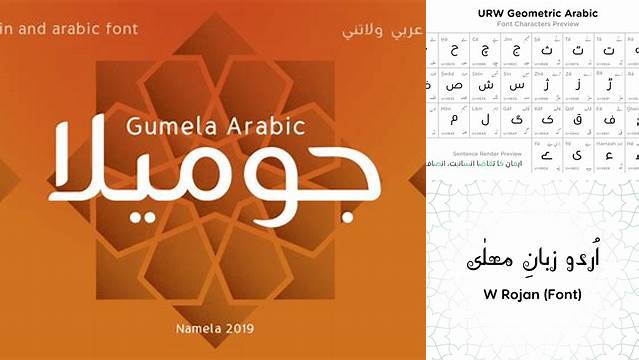
Free Geometric Arabic Font Downloads: A Designer's Guide
Hey there, font enthusiasts! Are you on the hunt for geometric Arabic fonts that perfectly blend tradition with modernity? Well, you've landed in the right spot! In this comprehensive guide, we'll dive deep into the world of geometric Arabic fonts, exploring their significance, characteristics, and, most importantly, where you can snag them for free. Let's embark on this typographical journey together!
What are Geometric Arabic Fonts?
Let's kick things off by understanding what geometric Arabic fonts actually are. These fonts are characterized by their clean lines, precise shapes, and a harmonious balance between curves and angles. Unlike traditional Arabic calligraphy, which often features flowing and intricate strokes, geometric fonts emphasize simplicity and clarity. This makes them incredibly versatile for a wide range of design applications.
The Essence of Geometric Design in Arabic Typography
Geometric design plays a crucial role in Arabic typography, offering a modern twist on classic scripts. Think of it as the architectural blueprint of a letter, where each stroke and curve is meticulously planned and executed. This approach not only enhances legibility but also brings a contemporary aesthetic to the Arabic script. The beauty of geometric fonts lies in their ability to communicate effectively while maintaining an elegant and sophisticated appearance. They’re like the minimalist architects of the font world, creating structures that are both functional and visually appealing.
Geometric Arabic fonts draw inspiration from geometric principles found in Islamic art and architecture. This influence is evident in the recurring use of shapes like circles, squares, and triangles, which are seamlessly integrated into the letterforms. This fusion of art and functionality makes these fonts particularly suitable for branding, logos, and digital interfaces, where a clean and modern look is essential. They bring a sense of order and precision that resonates well with contemporary design sensibilities.
Moreover, geometric fonts are not just about aesthetics; they also address the practical needs of modern typography. In digital spaces, where clarity and readability are paramount, geometric fonts shine. Their uniform strokes and balanced letterforms ensure that text remains legible even at smaller sizes, making them ideal for web design and mobile applications. This adaptability is a key reason why geometric Arabic fonts have become increasingly popular among designers and typographers. They bridge the gap between traditional Arabic calligraphy and the demands of modern digital communication, offering a versatile solution for a wide range of projects.
Why Geometric Arabic Fonts are a Designer's Best Friend
Why are geometric Arabic fonts so popular among designers, you ask? Well, there are several compelling reasons. First and foremost, their clean and modern aesthetic makes them perfect for contemporary designs. They exude a sense of sophistication and professionalism, making them ideal for branding, logos, and corporate communications. Secondly, geometric fonts are highly legible, which is crucial for ensuring that your message is effectively conveyed. Whether it's a website, a poster, or a mobile app, readability is key, and geometric fonts deliver on this front.
Designers appreciate the versatility of geometric Arabic fonts, which can be adapted to suit a variety of styles and applications. From minimalist designs to more complex layouts, these fonts seamlessly integrate, adding a touch of elegance and clarity. Their balanced letterforms and consistent strokes create a harmonious visual rhythm, making them a pleasure to read. This adaptability makes them a go-to choice for designers who need a reliable and aesthetically pleasing font.
Furthermore, geometric Arabic fonts often come with a range of weights and styles, providing designers with the flexibility to create visual hierarchy and emphasis within their designs. Whether you need a bold typeface for headlines or a light weight for body text, geometric fonts typically offer a comprehensive suite of options. This versatility allows designers to maintain a cohesive visual identity across different media and platforms. They are the Swiss Army knives of the font world, offering a tool for every design challenge.
In addition to their aesthetic and practical benefits, geometric Arabic fonts also carry a cultural significance. They represent a modern interpretation of traditional Arabic calligraphy, blending heritage with innovation. This makes them a powerful tool for brands and organizations that want to convey a sense of authenticity while also projecting a contemporary image. By using geometric fonts, designers can pay homage to the rich history of Arabic typography while creating designs that resonate with modern audiences. It's a way of bridging the past and the present, creating designs that are both timeless and relevant.
Where to Find Free Geometric Arabic Fonts
Now for the million-dollar question: where can you find these fantastic fonts without breaking the bank? Fear not, font aficionados! The internet is brimming with resources offering free geometric Arabic fonts. However, it's crucial to tread carefully and ensure that you're downloading fonts from reputable sources to avoid any licensing issues or malware.
Exploring Reputable Font Repositories
One of the best places to start your search is through reputable font repositories. Websites like Google Fonts, Font Squirrel, and Adobe Fonts offer a wide selection of free geometric Arabic fonts that are licensed for commercial use. These platforms meticulously curate their font libraries, ensuring that you have access to high-quality typefaces that are both legal and safe to use.
Google Fonts, in particular, is a treasure trove for designers seeking free and open-source fonts. It boasts an impressive collection of Arabic fonts, including several geometric styles, that can be easily integrated into websites and other digital projects. The fonts on Google Fonts are optimized for web use, ensuring that they load quickly and display beautifully on all devices. This makes Google Fonts an invaluable resource for web designers and developers looking to enhance their projects with Arabic typography.
Font Squirrel is another excellent option, offering a curated selection of high-quality free fonts that are licensed for commercial use. The website features a user-friendly interface that makes it easy to browse and discover new fonts. Font Squirrel also provides detailed licensing information for each font, ensuring that you understand how you can use it. This transparency is crucial for avoiding any potential legal issues and ensuring that you're using fonts responsibly.
Adobe Fonts, while primarily a subscription-based service, also offers a selection of free fonts that are available to Adobe Creative Cloud subscribers. These fonts are seamlessly integrated into Adobe's suite of design software, making it easy to incorporate them into your projects. The free fonts on Adobe Fonts are of the same high quality as the paid ones, providing designers with access to professional-grade typography without any additional cost.
By exploring these reputable font repositories, you can confidently find and download free geometric Arabic fonts that meet your design needs. These platforms offer a safe and reliable way to access a wide range of typefaces, empowering you to create stunning designs without breaking the bank.
Open Source Font Communities
Another fantastic avenue for discovering free geometric Arabic fonts is through open-source font communities. These communities are made up of passionate typographers and designers who generously share their creations with the world. Websites like Open Font Library and SIL Open Font License offer a plethora of fonts that are free to use, modify, and distribute.
Open Font Library is a collaborative platform that hosts a vast collection of open-source fonts, including a growing number of Arabic typefaces. The website is dedicated to promoting the development and use of free fonts, providing a space for designers to share their work and collaborate on new projects. Open Font Library is a great resource for finding unique and experimental fonts that you won't find anywhere else.
The SIL Open Font License (OFL) is a widely used license for open-source fonts, allowing designers to freely use, modify, and distribute fonts as long as they adhere to the terms of the license. Many geometric Arabic fonts are released under the OFL, making them accessible to a global community of designers. The OFL is designed to promote the development and sharing of fonts, fostering a collaborative environment within the typography community.
Participating in open-source font communities not only gives you access to a wealth of free fonts but also allows you to connect with other designers and typographers. These communities often host forums and discussions where you can ask questions, share your work, and learn from others. By engaging with these communities, you can expand your knowledge of typography and contribute to the development of new fonts.
When using open-source fonts, it's essential to carefully review the licensing terms to ensure that you're complying with the requirements. While the OFL is generally permissive, it's crucial to understand the specific conditions of each font license. This will help you avoid any potential legal issues and ensure that you're using fonts responsibly. By embracing open-source fonts, you can support the creative community and access a diverse range of high-quality typefaces for your design projects.
Free Font Websites and Resources
Beyond font repositories and open-source communities, numerous websites offer free geometric Arabic fonts for download. Websites like Behance, Dribbble, and individual designer portfolios often feature free font samples or complete font families that you can use in your projects. However, it's crucial to exercise caution and verify the licensing terms before using these fonts.
Behance and Dribbble are popular platforms for designers to showcase their work, and many designers offer free fonts as a way to promote their skills and attract new clients. These platforms are a great source for finding unique and stylish geometric Arabic fonts that reflect the latest design trends. However, it's essential to carefully review the licensing information provided by the designer to ensure that you're using the font in accordance with their terms.
Individual designer portfolios are another valuable resource for discovering free geometric Arabic fonts. Many independent typographers and font designers offer free fonts on their websites as a way to build their reputation and share their passion for typography. These fonts often come with detailed documentation and support, making them a great choice for designers who want to learn more about font design.
When downloading fonts from free font websites, it's crucial to be vigilant about potential risks. Some websites may host fonts that are infected with malware or that violate copyright laws. To protect yourself, always download fonts from reputable sources and scan downloaded files with antivirus software before using them. Additionally, carefully review the licensing terms of each font to ensure that you're using it legally and ethically.
By exploring these free font websites and resources, you can expand your typographic palette and discover a wide range of geometric Arabic fonts for your design projects. However, it's essential to exercise caution and verify the licensing terms to ensure that you're using fonts responsibly and safely.
Key Characteristics of Geometric Arabic Fonts
So, what exactly sets geometric Arabic fonts apart from other Arabic typefaces? Let's break down the key characteristics that define these fonts.
Clean Lines and Precise Shapes
The defining feature of geometric Arabic fonts is their emphasis on clean lines and precise shapes. Each letterform is carefully constructed using geometric principles, resulting in a typeface that is both elegant and highly legible. This focus on precision makes geometric fonts ideal for applications where clarity is paramount, such as in branding, signage, and digital interfaces.
The clean lines of geometric Arabic fonts contribute to their modern and minimalist aesthetic. By stripping away unnecessary ornamentation, these fonts convey a sense of simplicity and sophistication. This makes them a versatile choice for a wide range of design projects, from corporate communications to editorial layouts. The precise shapes of the letterforms ensure that each character is distinct and easily recognizable, enhancing readability and visual impact.
In contrast to more traditional Arabic scripts, which often feature flowing and calligraphic strokes, geometric fonts prioritize structure and uniformity. This emphasis on geometric forms creates a harmonious visual rhythm that is pleasing to the eye. The consistent stroke weights and balanced proportions of the letterforms contribute to the overall legibility and aesthetic appeal of the typeface.
The use of geometric principles in Arabic typography is not a new phenomenon. Islamic art and architecture have long been characterized by geometric patterns and designs, and these influences have found their way into Arabic calligraphy and typography. Geometric Arabic fonts represent a modern interpretation of these traditional forms, blending heritage with contemporary design sensibilities.
The clean lines and precise shapes of geometric Arabic fonts also make them well-suited for use in digital environments. In web design and mobile applications, clarity and readability are essential, and geometric fonts excel in these areas. Their uniform strokes and balanced letterforms ensure that text remains legible even at smaller sizes, making them a practical choice for digital interfaces.
By understanding the importance of clean lines and precise shapes in geometric Arabic fonts, designers can effectively use these typefaces to create visually appealing and highly legible designs. This characteristic is a key factor in the popularity and versatility of geometric Arabic fonts in modern typography.
Uniform Stroke Weights
Another hallmark of geometric Arabic fonts is their uniform stroke weights. This means that the thickness of the lines within each letterform remains consistent, creating a balanced and harmonious appearance. Uniform stroke weights enhance readability and give the font a clean and modern look.
The uniformity of stroke weights in geometric Arabic fonts contributes to their overall legibility and clarity. By maintaining a consistent thickness throughout each letterform, these fonts ensure that the characters are easily distinguishable, even at smaller sizes. This is particularly important in digital environments, where text needs to be legible on a variety of screens and devices.
In contrast to some other Arabic typefaces, which may feature varying stroke weights to create visual interest or emphasize certain elements, geometric fonts prioritize consistency. This uniformity creates a sense of order and precision, making these fonts well-suited for applications where clarity and professionalism are paramount. The balanced appearance of uniform stroke weights also contributes to the aesthetic appeal of geometric fonts, giving them a clean and modern look.
The use of uniform stroke weights in geometric Arabic fonts is a reflection of the geometric principles that underpin their design. Just as geometric shapes are defined by their precise proportions and consistent lines, geometric fonts are characterized by their uniform stroke weights. This attention to detail is a key factor in the visual harmony and legibility of these typefaces.
The uniform stroke weights of geometric Arabic fonts also make them versatile for a wide range of design applications. Whether used in headlines, body text, or logos, these fonts maintain their clarity and impact. Their balanced appearance ensures that they can be seamlessly integrated into various design layouts, from minimalist designs to more complex compositions.
By understanding the importance of uniform stroke weights in geometric Arabic fonts, designers can effectively use these typefaces to create visually appealing and highly legible designs. This characteristic is a key factor in the popularity and versatility of geometric Arabic fonts in modern typography.
Balanced Proportions
Geometric Arabic fonts are known for their balanced proportions, meaning that the height, width, and overall shape of each letterform are carefully calibrated to create a visually pleasing and harmonious whole. This balance contributes to the font's legibility and aesthetic appeal.
The balanced proportions of geometric Arabic fonts are a key factor in their readability. By ensuring that each letterform is appropriately sized and shaped, these fonts make it easier for the eye to scan and process text. This is particularly important in long passages of text, where legibility can significantly impact the reading experience.
In addition to enhancing readability, balanced proportions also contribute to the aesthetic appeal of geometric Arabic fonts. The harmonious relationship between the letterforms creates a sense of visual order and elegance. This makes geometric fonts a popular choice for designs that aim to convey a sense of sophistication and professionalism.
The balanced proportions of geometric Arabic fonts are achieved through careful attention to detail in the design process. Typographers meticulously craft each letterform, ensuring that it fits seamlessly within the overall typeface. This involves considering factors such as the height of the ascenders and descenders, the width of the characters, and the spacing between letters.
Geometric principles play a crucial role in achieving balanced proportions in Arabic fonts. By using geometric shapes as a foundation for the letterforms, typographers can create a sense of visual harmony and consistency. This approach ensures that the characters are well-proportioned and that the typeface as a whole is aesthetically pleasing.
The balanced proportions of geometric Arabic fonts also make them versatile for a wide range of design applications. Whether used in print or digital media, these fonts maintain their legibility and visual impact. Their harmonious appearance allows them to seamlessly integrate into various design layouts, making them a valuable tool for designers.
By understanding the importance of balanced proportions in geometric Arabic fonts, designers can effectively use these typefaces to create visually appealing and highly legible designs. This characteristic is a key factor in the popularity and versatility of geometric Arabic fonts in modern typography.
How to Choose the Right Geometric Arabic Font
With so many geometric Arabic fonts available, selecting the right one for your project can feel like a daunting task. Here are some factors to consider to make the process a little easier:
Consider Your Project's Purpose and Tone
When choosing a geometric Arabic font, the first and most crucial step is to consider the purpose and tone of your project. What message are you trying to convey? What kind of feeling do you want your design to evoke? The answers to these questions will guide you in selecting a font that aligns perfectly with your goals.
For projects that require a sense of professionalism and sophistication, a clean and minimalist geometric font is often the best choice. These fonts exude a sense of order and clarity, making them ideal for corporate communications, branding materials, and formal documents. Their simplicity conveys a sense of trustworthiness and reliability, which is essential for building credibility with your audience.
On the other hand, if your project aims to be more creative and expressive, you might opt for a geometric font with unique features or a more playful design. These fonts can add personality and flair to your designs, making them stand out from the crowd. However, it's important to strike a balance between creativity and legibility. Ensure that the font remains readable, even if it has distinctive characteristics.
The tone of your project also plays a significant role in font selection. Is your project serious and informative, or is it lighthearted and fun? The font you choose should reflect the overall mood of your design. For example, a bold and assertive geometric font might be suitable for a powerful headline, while a lighter and more delicate font could be used for body text in a softer, more approachable design.
By carefully considering the purpose and tone of your project, you can narrow down your font choices and select a geometric Arabic font that effectively communicates your message. Remember, the right font can enhance the impact of your design and help you connect with your audience on an emotional level.
Assess Legibility and Readability
Legibility and readability are paramount when selecting a geometric Arabic font. No matter how visually appealing a font may be, if it's difficult to read, it won't serve its purpose effectively. Legibility refers to the ability to distinguish individual letters, while readability is the ease with which a block of text can be read and understood.
When assessing legibility, consider the shapes of the letterforms and how easily they can be differentiated from one another. Are the characters distinct and clear, or do they blend together? Pay attention to the counters (the enclosed spaces within letters) and the overall structure of the glyphs. A legible font will have well-defined characters that are easy to recognize, even at smaller sizes.
Readability, on the other hand, depends on factors such as letter spacing, line height, and the overall rhythm of the text. A readable font will have appropriate spacing between letters and lines, allowing the eye to move smoothly across the text. The contrast between the text and the background also plays a crucial role in readability. Ensure that there is sufficient contrast to prevent eye strain and make the text easy to read.
Geometric Arabic fonts, with their clean lines and precise shapes, generally offer good legibility. However, it's essential to test the font in different contexts to ensure that it performs well in your specific application. Try using the font in headlines, body text, and other design elements to see how it looks and feels. Pay attention to how the font renders on different screens and devices, as this can affect its legibility.
In addition to visual testing, consider conducting user testing to gather feedback on the readability of your font choice. Ask people to read passages of text set in the font and provide their impressions. This can help you identify any potential issues and make informed decisions about your font selection.
By prioritizing legibility and readability, you can choose a geometric Arabic font that not only looks good but also effectively communicates your message. Remember, the goal is to make your text as accessible and easy to read as possible, ensuring that your audience can fully engage with your content.
Test Different Font Weights and Styles
Geometric Arabic fonts often come in various weights and styles, ranging from light and thin to bold and heavy. It's essential to test different font weights and styles to determine which ones best suit your project's needs. The weight of a font refers to the thickness of the strokes, while the style encompasses variations such as italic, condensed, and extended.
The font weight you choose can significantly impact the visual hierarchy of your design. Bolder weights are typically used for headlines and subheadings to draw attention, while lighter weights are better suited for body text. The contrast between different font weights can help create visual interest and guide the reader through your content.
When testing font weights, consider the overall balance and harmony of your design. A font that is too bold can overwhelm the other elements, while a font that is too light may be difficult to read. Experiment with different weights to find the sweet spot that achieves the desired visual impact without sacrificing legibility.
Font styles, such as italic, can be used to add emphasis or create a visual distinction within your text. Italic fonts have a slanted appearance, which makes them stand out from regular (roman) fonts. However, it's important to use italic sparingly, as overuse can reduce readability.
Other font styles, such as condensed and extended, can be used to fit text into specific spaces or create a particular visual effect. Condensed fonts are narrower than regular fonts, while extended fonts are wider. These styles can be useful for headlines or display text, but they may not be suitable for body text, as they can be more challenging to read in large blocks.
When testing different font weights and styles, consider the overall aesthetic of your design and how the font variations contribute to the visual message. Experiment with different combinations to find the ones that best complement your project's purpose and tone. Remember, the goal is to create a cohesive and visually appealing design that effectively communicates your message.
Common Uses of Geometric Arabic Fonts
Geometric Arabic fonts are incredibly versatile and can be used in a wide array of design projects. Here are some common applications:
Branding and Logos
One of the most popular uses of geometric Arabic fonts is in branding and logo design. Their clean, modern aesthetic makes them ideal for creating logos that convey a sense of sophistication, professionalism, and innovation. Geometric fonts can help a brand project a strong and confident image, making them a valuable tool for businesses and organizations seeking to establish a memorable identity.
When used in logos, geometric Arabic fonts can effectively communicate a brand's values and personality. A minimalist geometric font can convey simplicity and elegance, while a bolder font can project strength and authority. The choice of font should align with the brand's overall message and target audience. A well-designed logo using a geometric Arabic font can create a lasting impression and help a brand stand out in a competitive market.
Geometric fonts are also versatile enough to be adapted to a variety of branding materials, including business cards, letterheads, and websites. Their clean lines and precise shapes ensure that the brand identity remains consistent across all platforms. This consistency is crucial for building brand recognition and trust with customers.
The use of geometric Arabic fonts in branding is not limited to specific industries or sectors. They can be effectively used by businesses of all sizes and types, from startups to established corporations. Their modern and professional look makes them a versatile choice for any brand that wants to project a contemporary image.
In addition to their aesthetic qualities, geometric Arabic fonts also offer practical advantages for branding. Their legibility and readability make them suitable for use in a variety of contexts, including digital and print media. This ensures that the brand message remains clear and accessible, regardless of the medium.
By incorporating geometric Arabic fonts into their branding and logo design, businesses can create a strong and memorable visual identity that resonates with their target audience. These fonts offer a perfect blend of modernity and tradition, making them a valuable asset for any brand seeking to establish a unique and professional image.
Web Design and Digital Interfaces
In the realm of web design and digital interfaces, geometric Arabic fonts truly shine. Their legibility and clean lines make them perfect for on-screen reading, ensuring a smooth and enjoyable user experience. Whether it's a website, a mobile app, or a digital publication, geometric fonts can enhance the visual appeal and readability of your content.
Web designers often choose geometric Arabic fonts for their ability to render clearly on different screens and devices. The uniform stroke weights and balanced proportions of these fonts contribute to their legibility, even at smaller sizes. This is particularly important for responsive designs, which adapt to various screen resolutions and orientations.
Geometric fonts also lend a modern and sophisticated touch to digital interfaces. Their clean and minimalist aesthetic aligns well with contemporary design trends, making them a popular choice for websites and apps that aim to project a professional and user-friendly image. A well-chosen geometric font can elevate the overall visual appeal of a digital interface and create a positive user experience.
In addition to their aesthetic qualities, geometric Arabic fonts also offer practical advantages for web design. They are typically available in various weights and styles, allowing designers to create visual hierarchy and emphasis within their content. This helps guide the user's eye and makes the information more accessible.
Geometric fonts are also well-suited for use in interactive elements, such as buttons and navigation menus. Their clear and distinct letterforms ensure that these elements are easily recognizable and clickable, enhancing the usability of the interface.
The use of geometric Arabic fonts in web design is not limited to specific types of websites or applications. They can be effectively used in a variety of contexts, from corporate websites to e-commerce platforms to personal blogs. Their versatility and readability make them a valuable asset for any digital project.
By incorporating geometric Arabic fonts into their web design and digital interfaces, designers can create visually appealing and user-friendly experiences that resonate with their audience. These fonts offer a perfect blend of modernity and functionality, making them an essential tool for any digital design project.
Print Materials
Geometric Arabic fonts are not just limited to the digital world; they also excel in print materials. From brochures and posters to books and magazines, these fonts can add a touch of elegance and clarity to your printed designs. Their legibility and clean lines make them ideal for conveying information effectively in a variety of print contexts.
In print design, geometric Arabic fonts offer a versatile option for creating visually appealing and readable layouts. Their uniform stroke weights and balanced proportions ensure that the text remains clear and distinct, even on different paper stocks and printing techniques. This is particularly important for materials that require a professional and polished look, such as corporate brochures and annual reports.
Geometric fonts can also be effectively used in print advertising, such as posters and flyers. Their bold and modern aesthetic can help capture the audience's attention and convey the message in a clear and concise manner. The choice of font weight and style can be tailored to the specific design, allowing for creative expression while maintaining legibility.
In the realm of book and magazine design, geometric Arabic fonts can enhance the reading experience by providing a clean and comfortable typeface for body text. Their legibility and balanced letterforms ensure that readers can easily engage with the content, making them a popular choice for long-form publications.
The use of geometric Arabic fonts in print materials is not limited to text-heavy designs. They can also be effectively used in combination with other visual elements, such as images and illustrations, to create a cohesive and visually appealing layout. Their clean lines and precise shapes complement other design elements, allowing for a harmonious integration of text and visuals.
By incorporating geometric Arabic fonts into their print materials, designers can create professional and visually appealing designs that effectively communicate their message. These fonts offer a perfect blend of modernity and readability, making them an essential tool for any print design project.
Free vs. Premium Geometric Arabic Fonts
Ah, the age-old question: free versus premium fonts. While the allure of free geometric Arabic fonts is undeniable, it's crucial to weigh the pros and cons before making a decision. Premium fonts often offer a wider range of features, styles, and licensing options, but they come with a price tag. On the other hand, free fonts can be a great option for budget-conscious designers, but they may have limitations.
Quality and Features
When it comes to quality and features, premium geometric Arabic fonts often have the upper hand. Premium fonts are typically crafted by experienced typographers and font designers who invest significant time and effort into creating high-quality typefaces. These fonts often feature meticulously designed letterforms, consistent spacing, and a wide range of weights and styles.
Premium fonts also tend to offer more advanced features, such as OpenType features, which allow for greater typographic control. OpenType features can include ligatures (letter combinations that are designed to flow together), stylistic alternates (different versions of the same letter), and other enhancements that can elevate the visual appeal and readability of the typeface.
In contrast, free geometric Arabic fonts may vary in quality and features. While there are many excellent free fonts available, some may have inconsistencies in their design or lack the advanced features of premium fonts. It's important to carefully evaluate the quality of a free font before using it in a project.
One of the main advantages of premium fonts is the level of support and updates that they typically offer. Premium font foundries often provide technical support to customers and regularly update their fonts to address any issues or add new features. This can be particularly valuable for designers who need assistance with font installation or usage.
Another benefit of premium fonts is the peace of mind that comes with knowing you have a valid license for commercial use. Premium font licenses typically cover a wide range of applications, allowing designers to use the fonts in various projects without worrying about copyright issues.
By investing in premium geometric Arabic fonts, designers can ensure that they have access to high-quality typefaces with the features and support they need to create professional and visually appealing designs. While free fonts can be a good option for certain projects, premium fonts often offer a superior level of quality and versatility.
Licensing and Usage Rights
Understanding licensing and usage rights is essential when choosing between free and premium geometric Arabic fonts. The licensing terms dictate how you can legally use a font, including whether you can use it for commercial projects, modify it, or embed it in digital documents.
Premium fonts typically come with a commercial license, which allows you to use the font in a wide range of projects, including logos, branding materials, websites, and print publications. Commercial licenses may have restrictions on the number of users or the number of projects in which the font can be used, so it's important to carefully review the licensing terms before making a purchase.
Free geometric Arabic fonts, on the other hand, may come with a variety of licenses, ranging from open-source licenses to personal-use licenses. Open-source licenses, such as the SIL Open Font License (OFL), allow you to freely use, modify, and distribute the font, even for commercial purposes. However, it's important to comply with the terms of the license, which may include requirements for attribution or maintaining the original copyright notice.
Personal-use licenses, on the other hand, typically restrict the use of the font to non-commercial projects. This means you can use the font for personal projects, such as invitations or greeting cards, but you cannot use it for projects that generate revenue, such as logos or websites for businesses.
When choosing a geometric Arabic font, carefully consider the licensing terms and ensure that they align with your project's needs. If you plan to use the font for commercial purposes, it's essential to choose a font with a commercial license or an open-source license that allows commercial use.
Another important consideration is font embedding. Font embedding is the process of including the font file within a digital document, such as a PDF or an e-book. This ensures that the document will display correctly, even if the recipient does not have the font installed on their computer.
Premium fonts typically allow font embedding, while free fonts may have restrictions on font embedding. If you plan to embed the font in digital documents, be sure to choose a font with a license that permits font embedding.
By carefully reviewing the licensing and usage rights of geometric Arabic fonts, you can ensure that you are using the font legally and ethically. This will help you avoid any potential copyright issues and protect yourself from legal liabilities.
Budget Considerations
Budget considerations often play a significant role in the decision between free and premium geometric Arabic fonts. Premium fonts can range in price from a few dollars to hundreds of dollars, depending on the font family, the number of styles included, and the licensing terms. For designers working on a tight budget, the cost of premium fonts can be a significant barrier.
Free geometric Arabic fonts offer a cost-effective alternative to premium fonts. There are many high-quality free fonts available that can be used in a variety of projects. However, it's important to remember that not all free fonts are created equal, and some may have limitations in terms of quality, features, or licensing.
When considering budget, it's helpful to weigh the cost of the font against the value it will bring to your project. If you are working on a high-profile project or need a font with specific features, investing in a premium font may be worth the cost. However, if you are working on a smaller project or have more flexibility in your font selection, a free font may be a suitable option.
Another way to save money on fonts is to explore font subscription services. Font subscription services offer access to a large library of fonts for a monthly or annual fee. This can be a cost-effective option for designers who need access to a variety of fonts for different projects.
When evaluating free geometric Arabic fonts, it's important to consider the time and effort required to find a suitable font. Searching for and testing free fonts can be time-consuming, so it's important to factor this into your budget calculations. If your time is valuable, it may be more efficient to invest in a premium font that you know will meet your needs.
By carefully considering budget considerations, designers can make informed decisions about whether to choose free or premium geometric Arabic fonts. The key is to weigh the cost of the font against the value it will bring to your project and ensure that you are choosing a font that meets your needs and budget.
Tips for Using Geometric Arabic Fonts Effectively
Now that you've got a handle on geometric Arabic fonts, let's discuss some tips for using them effectively in your designs:
Pair with Complementary Fonts
Pairing geometric Arabic fonts with complementary fonts can create visually appealing and harmonious designs. The key to successful font pairing is to choose fonts that complement each other without clashing or competing for attention. When pairing a geometric Arabic font, consider the overall style and tone of your design and choose a secondary font that enhances the visual message.
One common approach is to pair a geometric Arabic font with a more traditional Arabic typeface. This can create a sense of balance and contrast, blending modernity with tradition. For example, you might pair a clean and minimalist geometric font with a more calligraphic typeface for headlines, while using the geometric font for body text.
Another approach is to pair a geometric Arabic font with a sans-serif Latin font. This can create a cohesive and contemporary look, particularly in bilingual designs. When choosing a sans-serif Latin font, look for one that has similar proportions and stroke weights to the geometric Arabic font. This will ensure that the fonts work well together visually.
When pairing fonts, it's important to consider the visual hierarchy of your design. Use different font weights and styles to create emphasis and guide the reader's eye. For example, you might use a bold geometric Arabic font for headlines and a lighter weight for body text. This will help create a clear and organized layout that is easy to read and understand.
Avoid using too many different fonts in a single design, as this can create a cluttered and overwhelming look. A general rule of thumb is to stick to two or three fonts at most. This will help maintain visual consistency and create a more professional and polished design.
Experiment with different font pairings to find the combinations that work best for your project. Use font pairing resources, such as websites and articles, to get inspiration and guidance. Pay attention to how different fonts interact with each other and how they contribute to the overall visual message of your design.
By pairing geometric Arabic fonts with complementary fonts, you can create visually stunning designs that effectively communicate your message. The key is to choose fonts that work well together and enhance the overall aesthetic of your project.
Use Hierarchy to Guide the Reader
Using hierarchy is crucial for creating effective and engaging designs with geometric Arabic fonts. Visual hierarchy refers to the arrangement of design elements in a way that guides the reader's eye and emphasizes important information. By strategically using font sizes, weights, and styles, you can create a clear and organized layout that is easy to navigate.
One of the most effective ways to create hierarchy is to use different font sizes for different elements. Headlines should be larger than subheadings, which should be larger than body text. This creates a visual distinction that helps the reader quickly identify the main points of your content.
Font weight can also be used to create hierarchy. Bolder fonts tend to draw more attention than lighter fonts, so you can use bold weights for headlines and key phrases to make them stand out. Use lighter weights for body text to maintain readability and prevent the text from overwhelming the design.
Font style, such as italic or bold italic, can be used to add emphasis to specific words or phrases. However, it's important to use these styles sparingly, as overuse can reduce readability. Use them strategically to highlight key information or create a visual contrast.
In addition to font size, weight, and style, spacing can also be used to create hierarchy. Use larger spacing between headings and paragraphs to visually separate them and create a clear structure. Use smaller spacing within paragraphs to maintain readability.
Color can also be used to create hierarchy, but it's important to use it carefully. Too many colors can create a chaotic and overwhelming design. Use color strategically to highlight important elements or create a visual contrast.
When using geometric Arabic fonts, it's important to maintain a consistent visual hierarchy throughout your design. This will help create a professional and polished look and ensure that your message is effectively communicated.
By using hierarchy effectively, you can create designs with geometric Arabic fonts that are both visually appealing and easy to navigate. The key is to strategically use font sizes, weights, styles, and spacing to guide the reader's eye and emphasize important information.
Maintain Consistency Throughout Your Design
Maintaining consistency is paramount when working with geometric Arabic fonts, or any font for that matter. Consistency creates a sense of visual harmony and professionalism, making your designs more cohesive and impactful. When using geometric Arabic fonts, strive for consistency in font choices, sizes, weights, spacing, and color throughout your design.
One of the most important aspects of consistency is font choice. Once you have selected a geometric Arabic font for your project, stick to it throughout the design. Avoid using too many different fonts, as this can create a cluttered and confusing look. A general rule of thumb is to limit yourself to two or three fonts at most.
Consistency in font size is also crucial. Use the same font sizes for similar elements, such as headlines, subheadings, and body text. This will help create a clear visual hierarchy and guide the reader's eye. Avoid varying font sizes unnecessarily, as this can disrupt the flow of your design.
Font weight should also be consistent throughout your design. Use the same font weights for similar elements, such as bold for headlines and regular for body text. This will help create a uniform look and maintain readability.
Spacing is another key element of consistency. Use consistent spacing between letters, words, lines, and paragraphs. This will help create a clean and organized layout that is easy to read and understand. Avoid using excessive spacing, as this can make your design look disjointed.
Color consistency is also important. Use the same colors for similar elements, such as headings, subheadings, and body text. This will help create a cohesive and visually appealing design. Avoid using too many colors, as this can create a chaotic and overwhelming look.
By maintaining consistency throughout your design, you can create a professional and polished look that effectively communicates your message. When using geometric Arabic fonts, pay attention to font choices, sizes, weights, spacing, and color to create a harmonious and visually appealing design.
And there you have it, folks! A comprehensive guide to geometric Arabic fonts and where to find them for free. These fonts are a fantastic choice for anyone looking to infuse their designs with a modern and sophisticated touch. Whether you're working on branding, web design, or print materials, geometric Arabic fonts offer a versatile and elegant solution. So go ahead, explore the world of geometric typography, and let your creativity soar!